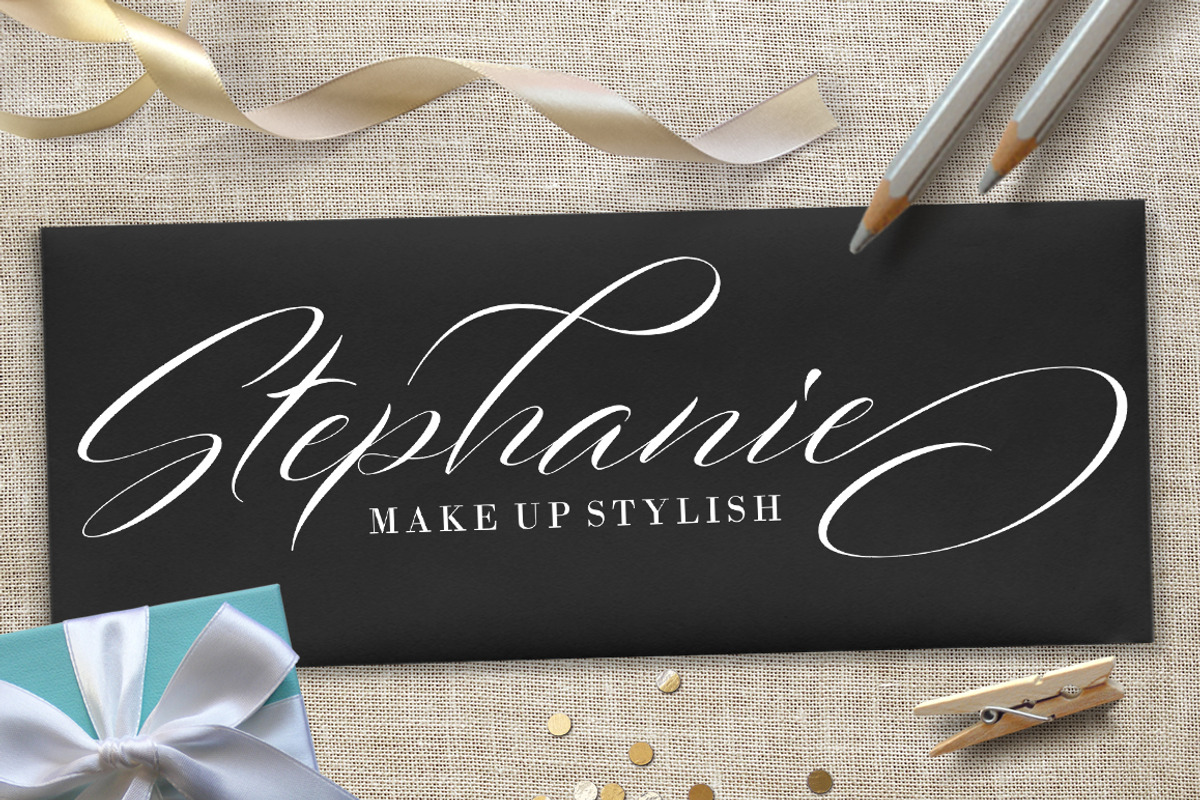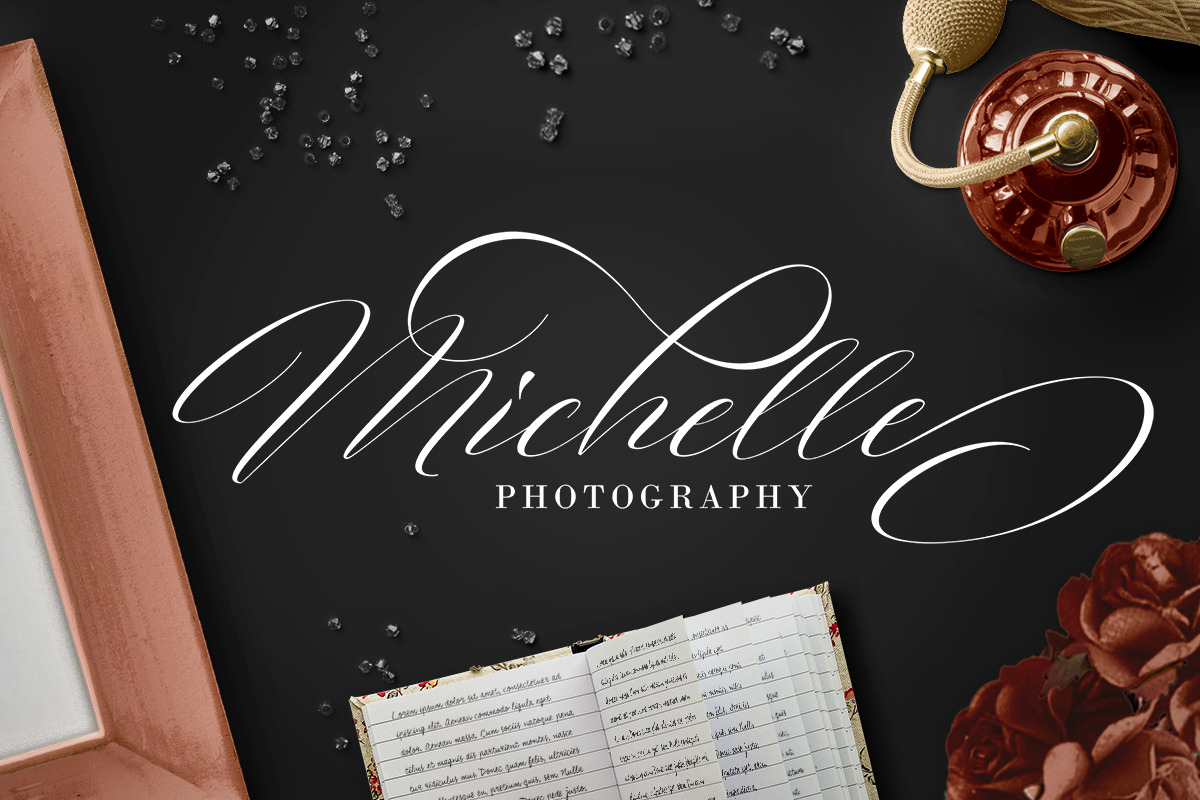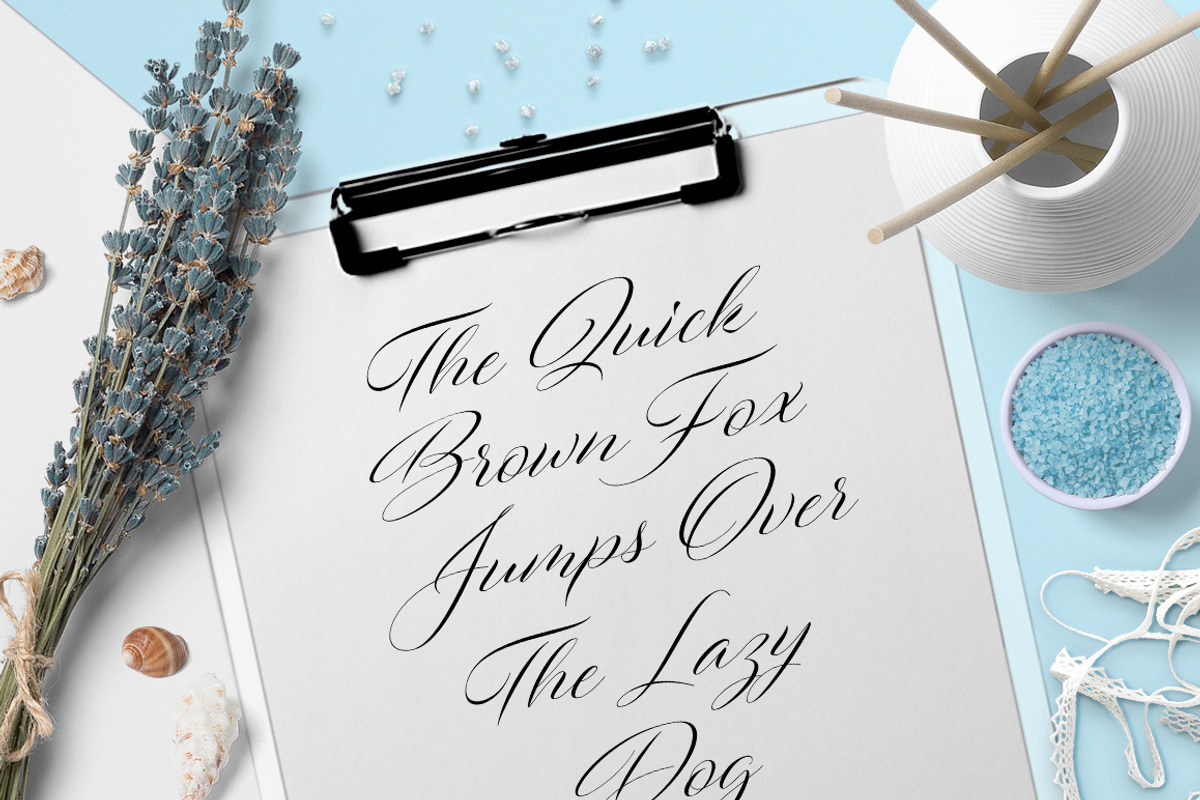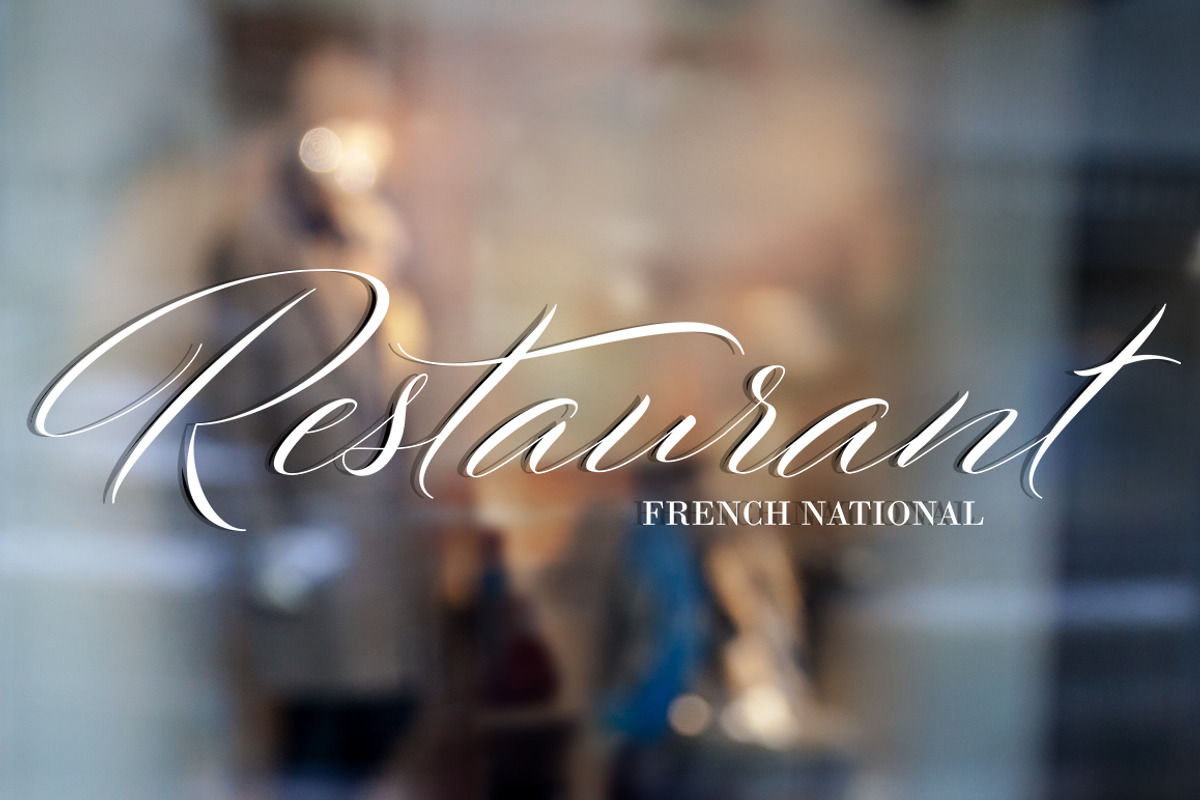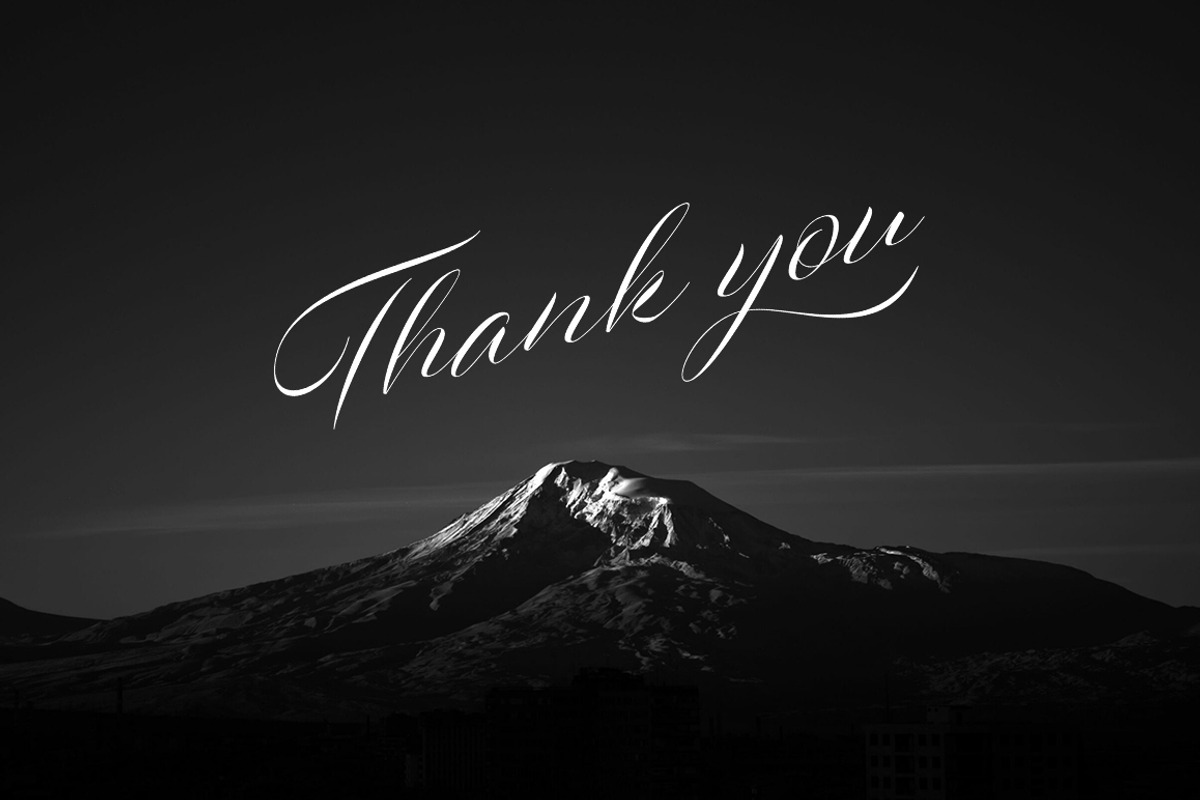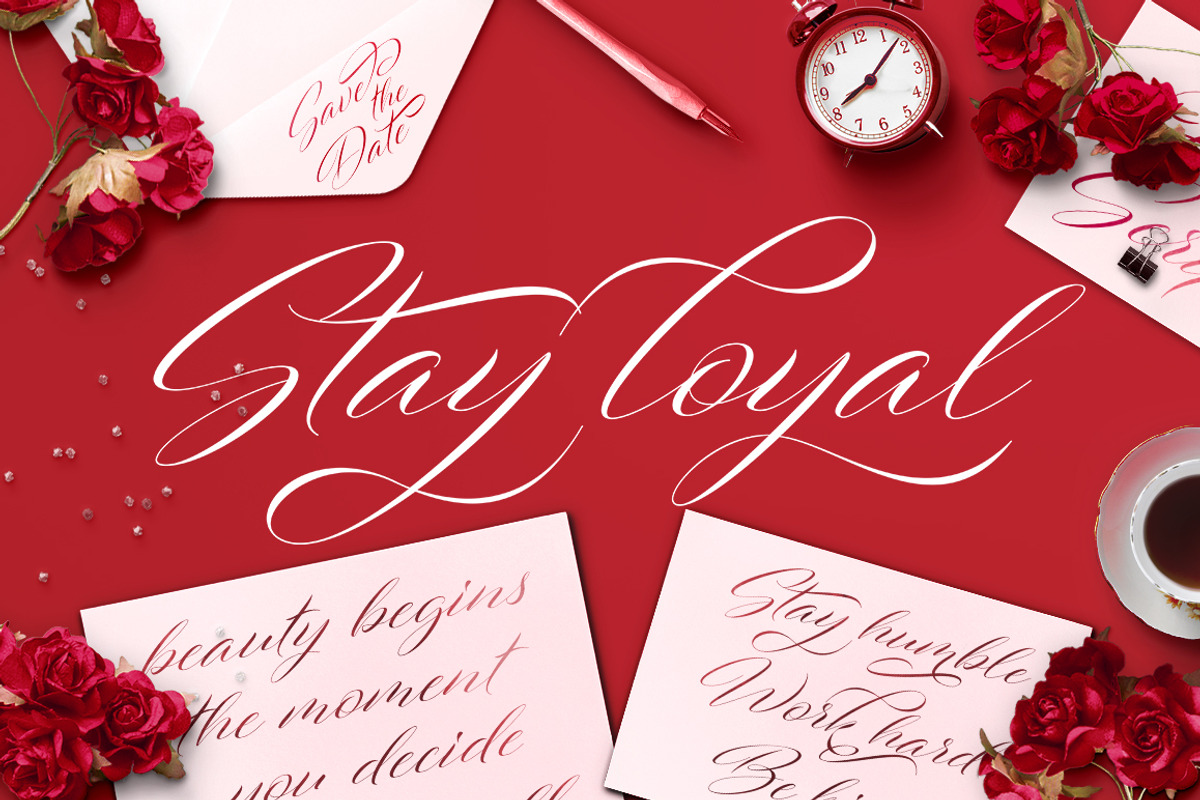
Fresh Script
Fresh Script is a handwritten calligraphy font, free flowing, casual and elegant touch. Modern style is perfect to be applied in various formal forms such as invitations, labels, restaurant menus, logos, fashion, make up, stationery, novels, magazines, books, greeting / wedding cards, packaging, labels or any type of advertising purpose.
Fresh Script has 385 glyphs and 190 alternative characters, including various language support. With OpenType features with alternative styles and elegant ligatures. The OpenType feature does not work automatically, but you can access it manually and for the best results needed for your creativity in combining this Glyph variation.
- Fresh Script has 385 glyphs and 190 alternative characters, including various language support.
- With OpenType features with alternative styles and elegant ligatures.
Fresh Script by TRF Fonts fits naturally into Branding, posters, packaging, typography.